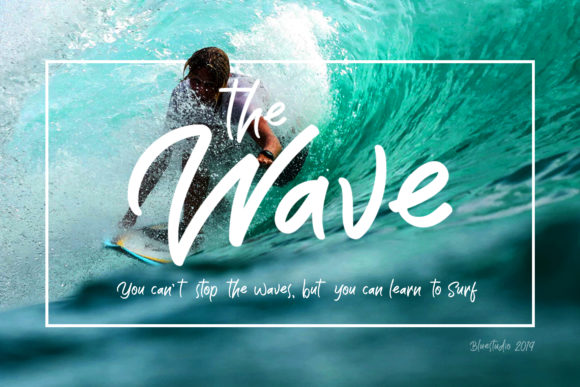
Journey into the world of typography with The Wave Font, a mesmerizing display font crafted by Bluestudio, designed to make a splash in your design endeavors. Its dynamic curves and rhythmic flow will captivate your audience, leaving an unforgettable impression.
Step into the realm of creativity with The Wave Font, where imagination meets elegance. Discover a font that dances across your screen, evoking the carefree spirit of the ocean's waves. Let your words ripple with grace and fluidity, creating designs that are both visually captivating and impactful.
With its distinct character and undeniable charm, The Wave Font transcends the boundaries of ordinary fonts. It's not just a font; it's an artistic masterpiece that elevates your designs to new heights. Experience the thrill of creating projects that resonate with your audience, leaving them in awe of your typographic prowess.
This extraordinary font family boasts a stunning array of letterforms, meticulously crafted to provide unparalleled versatility. The Wave Font effortlessly adapts to any design concept, whether you're crafting logos, branding materials, social media graphics, or eye-catching headlines. Its adaptability knows no bounds, allowing you to weave your creative magic across a multitude of projects.
Immerse yourself in a font that captures the essence of individuality. The Wave Font is more than just a collection of letters; it's a gateway to expressing your unique style and captivating your audience. Unleash your creativity and let The Wave Font guide you towards design excellence.